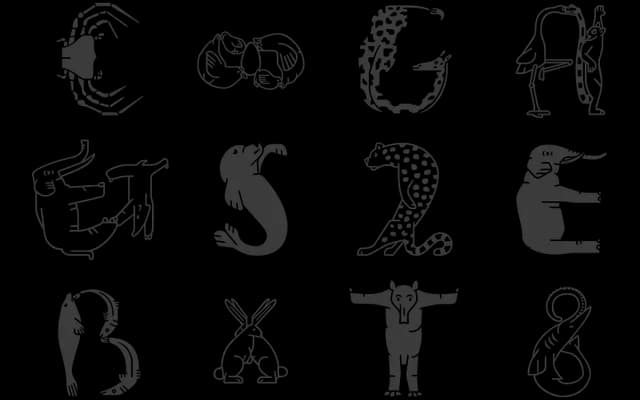
An animal alphabet typeface in which each letterform is built around an actual animal, covering a full Latin character set across three styles: Line, Inner and Filled.
Rather than retrofitting tails and whiskers onto an existing typeface, Fabel constructs every letter around its corresponding animal, letting the creature's natural form dictate the shape. The family spans 330 characters from the A of Anteater to the Z of Zander, including upper and lower case, punctuation, old-style and tabular numerals, and a broad range of mathematical symbols. Three styles, Line, Inner and Filled, give designers control over visual weight and detail level.
Fabel is a display typeface in which each letterform is constructed from an animal illustration, making it a pictorial or novelty face rather than a conventional text or titling type.